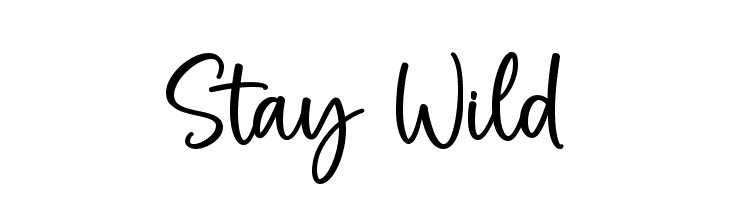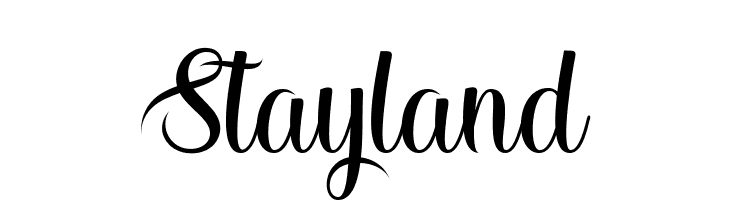
An elegant script font with flowing, decorative strokes.
( John Stracke - www.thibault.org/fonts/ )
A playful, bold font with rounded, bubbly characters.
( Fonts by Jimtype Studio )
A bold, playful font with a bubbly, retro design.
( Fonts by Scratchones )
A playful, bold font with rounded edges and a slightly condensed form.
An elegant, flowing script font with a cursive, handwritten style.
( Jonathan S. Harris - www.tattoowoo.com )
A textured, dynamic script font with a brush-like appearance.
( Fonts by Marina Sanders )
A playful handwritten font with a smooth, consistent flow and friendly appearance.
( Fonts by Typefactoryco )
A bold, flame-themed font with thick strokes and dynamic energy.
A bold, brushstroke font with a rough, textured appearance.